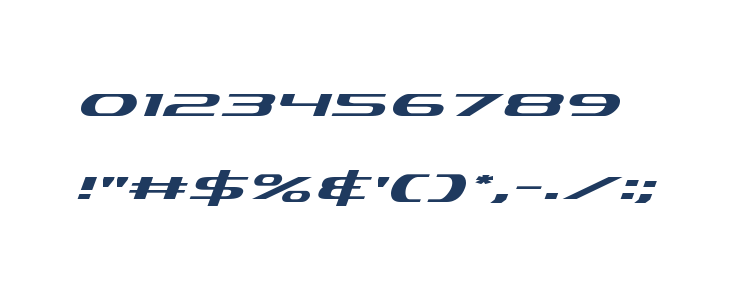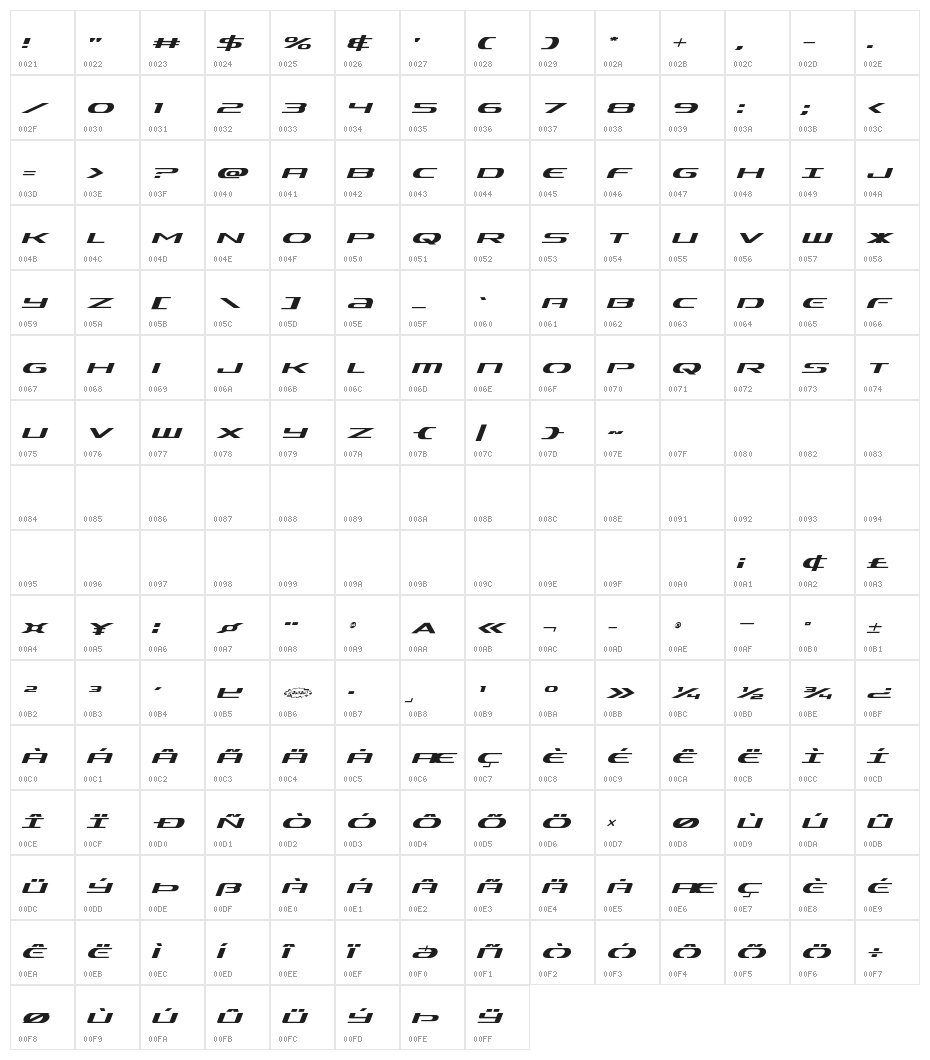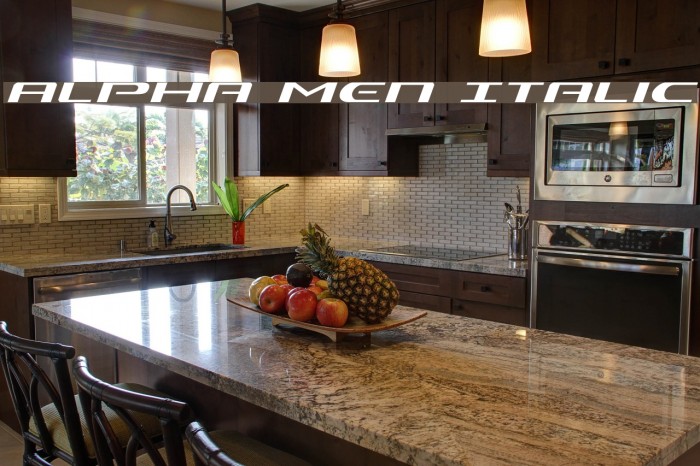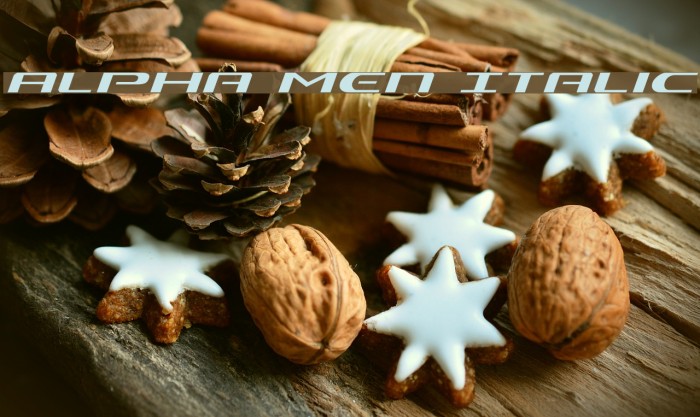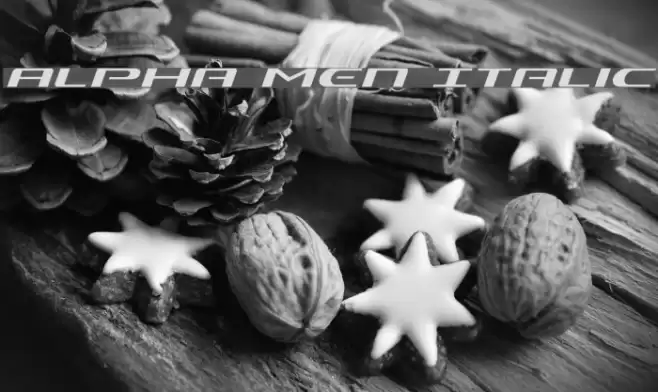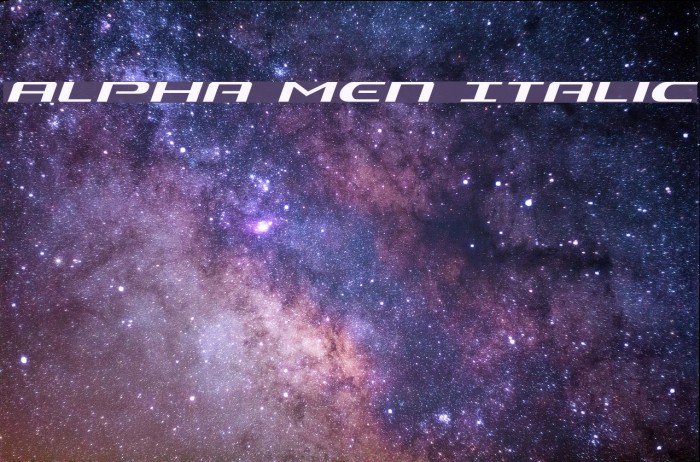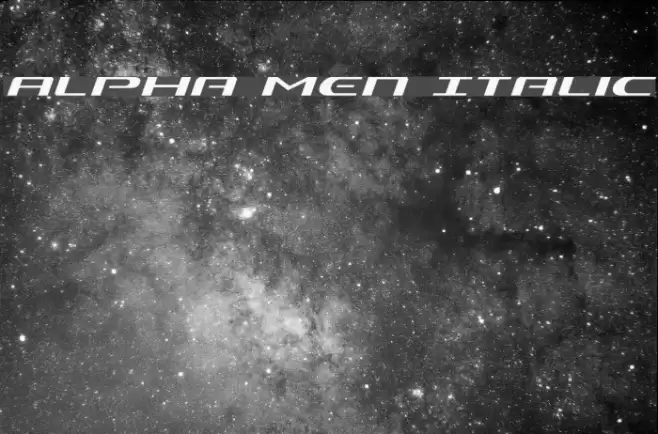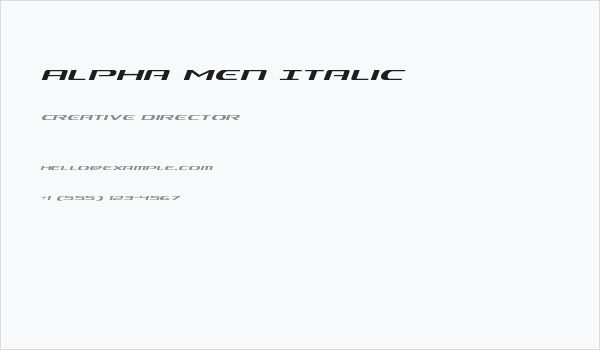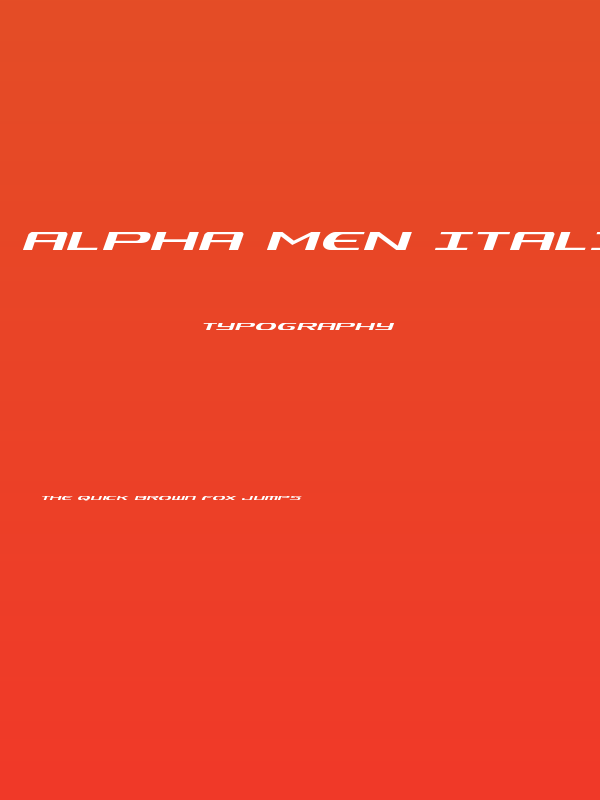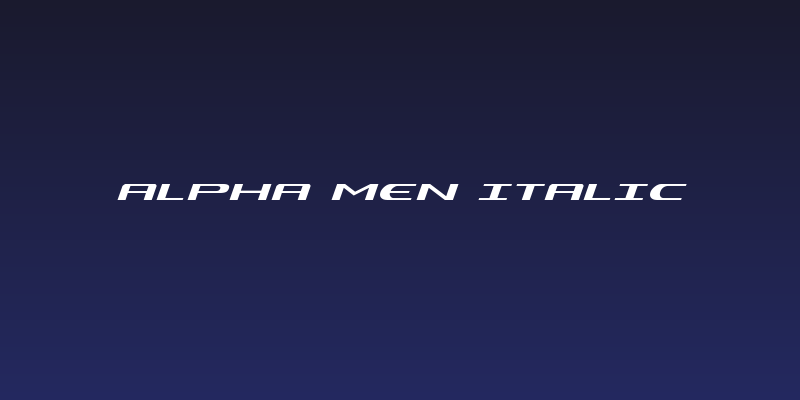
Alpha Men Italic Font
Alpha Men Italic Description
This font features a sleek, italicized design with a futuristic and dynamic appearance. The characters are slightly slanted, giving a sense of motion and speed. The strokes are smooth and consistent, with a moderate width that maintains readability while adding a touch of elegance. The uppercase and lowercase letters are well-proportioned, and the numerals are clear and distinct. Special characters are designed to match the overall aesthetic, making this font versatile for various applications.
| Overall Style | Futuristic, Dynamic |
| Use Case | Logos, Headlines, Branding |
| Proposed Projects | Ideal for projects requiring a modern and energetic look, such as tech branding, sports team logos, or sci-fi themed designs. |